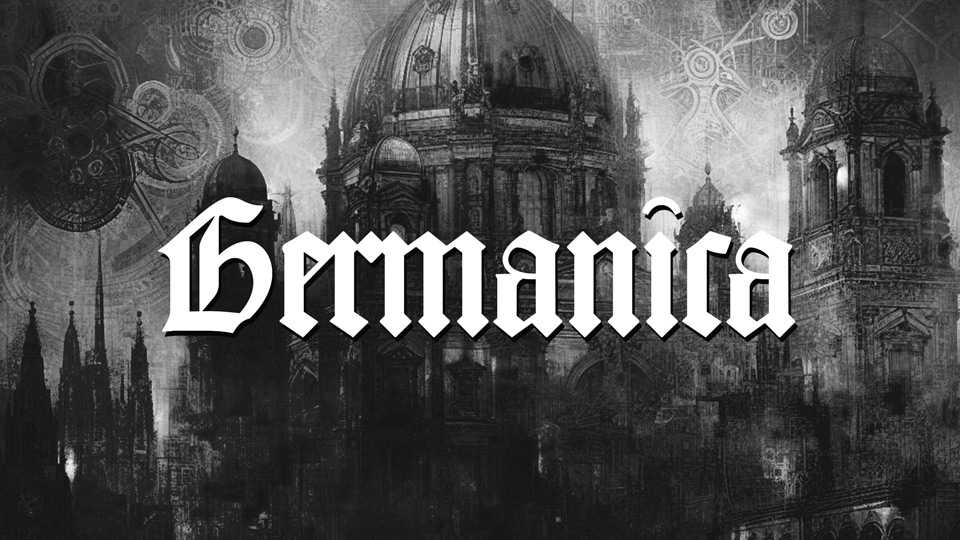
Download Germanica font, a blackletter (textura quadrata) type based mainly on one used by two of the first German printers, Fust and Schöffer, in 1457.
Designer: Séamas Ó Brógáin